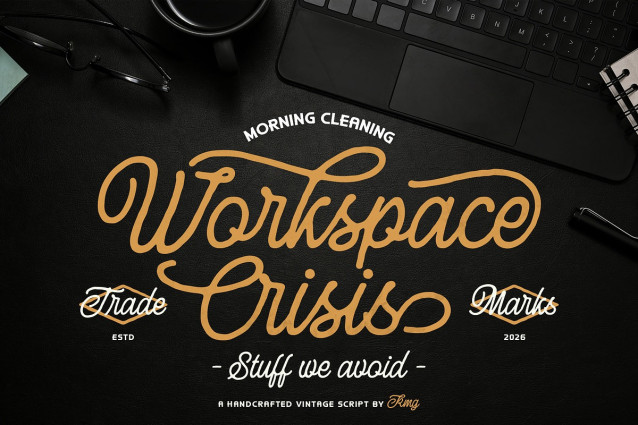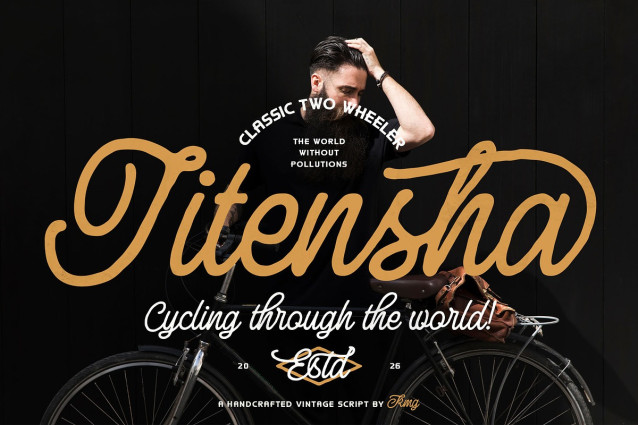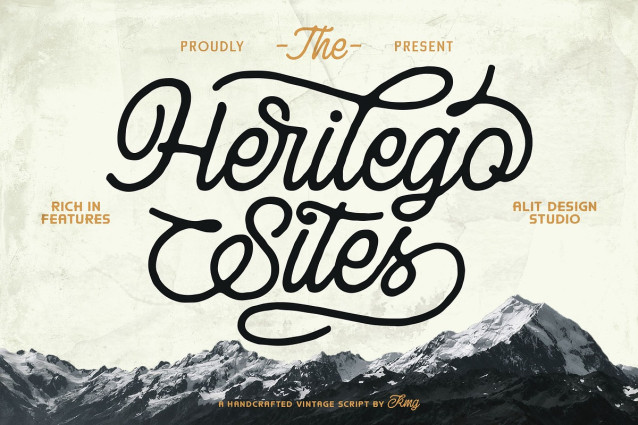
Herilego Sites Font
Herilego Sites Font a premium handcrafted vintage script that seamlessly blends nostalgic elegance with modern versatility. Inspired by classic mid-century signage and artisanal hand-lettering, this typeface is designed for creators who want to add an authentic, “human” touch to their digital designs.
Herilego Sites is more than just a font; it is a comprehensive design toolkit. With its fluid strokes and an extensive library of stylistic alternates, this typeface allows you to create custom-looking typography effortlessly. Whether you are aiming for a rugged outdoor vibe or a sophisticated cafe aesthetic, Herilego Sites adapts to your vision.